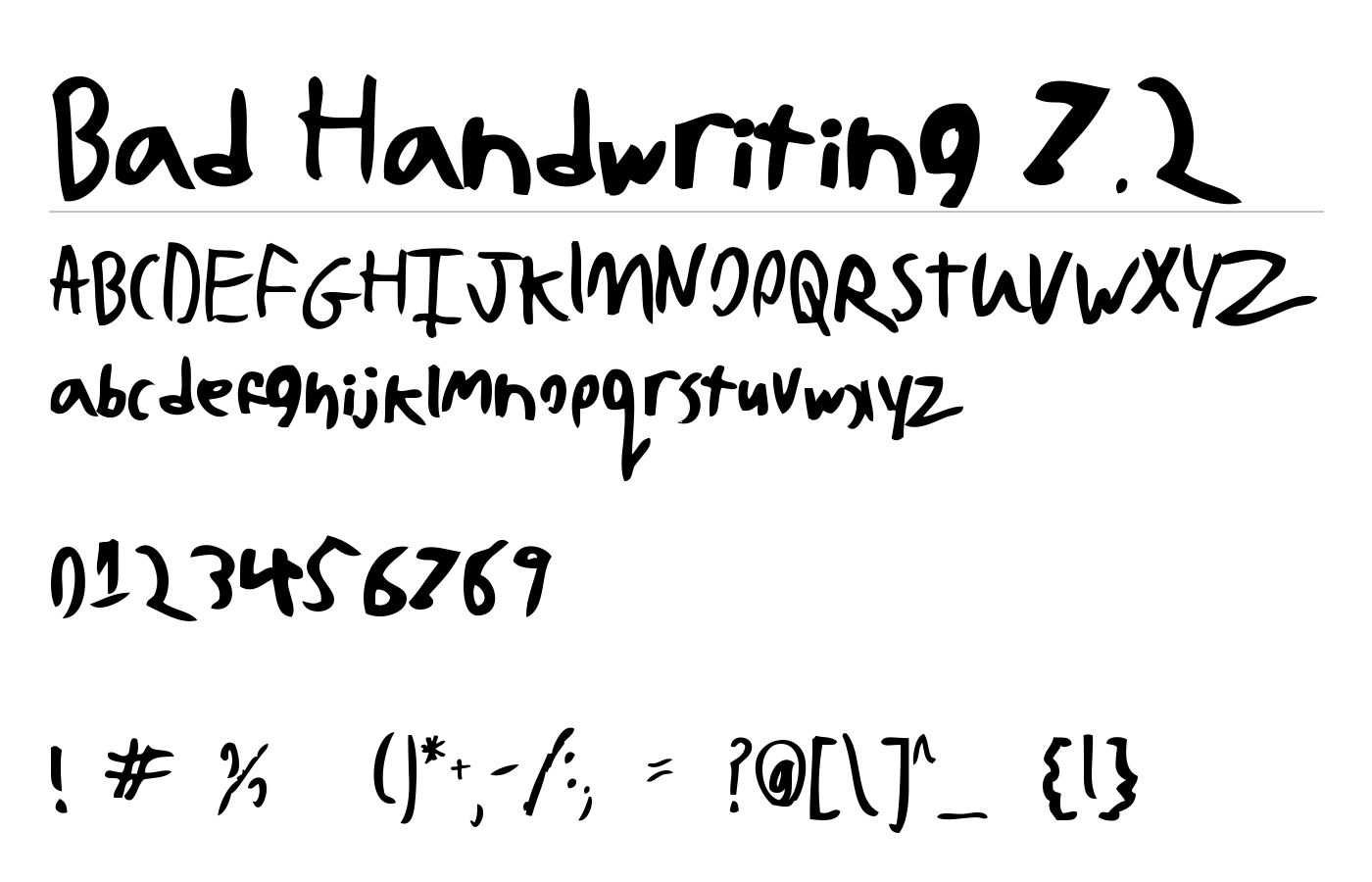
Bad Handwriting 7.2 is a playful, casual handwritten font with irregular, quirky letterforms that give it a spontaneous, imperfect charm. Its bold weight and uneven strokes create a lively, informal feel, making it perfect for creative projects, fun branding, or any design that benefits from a personal, whimsical touch. This font works best in headlines, logos, and packaging where a unique, hand-crafted look is desired.
Bad Handwriting 7.2 Font